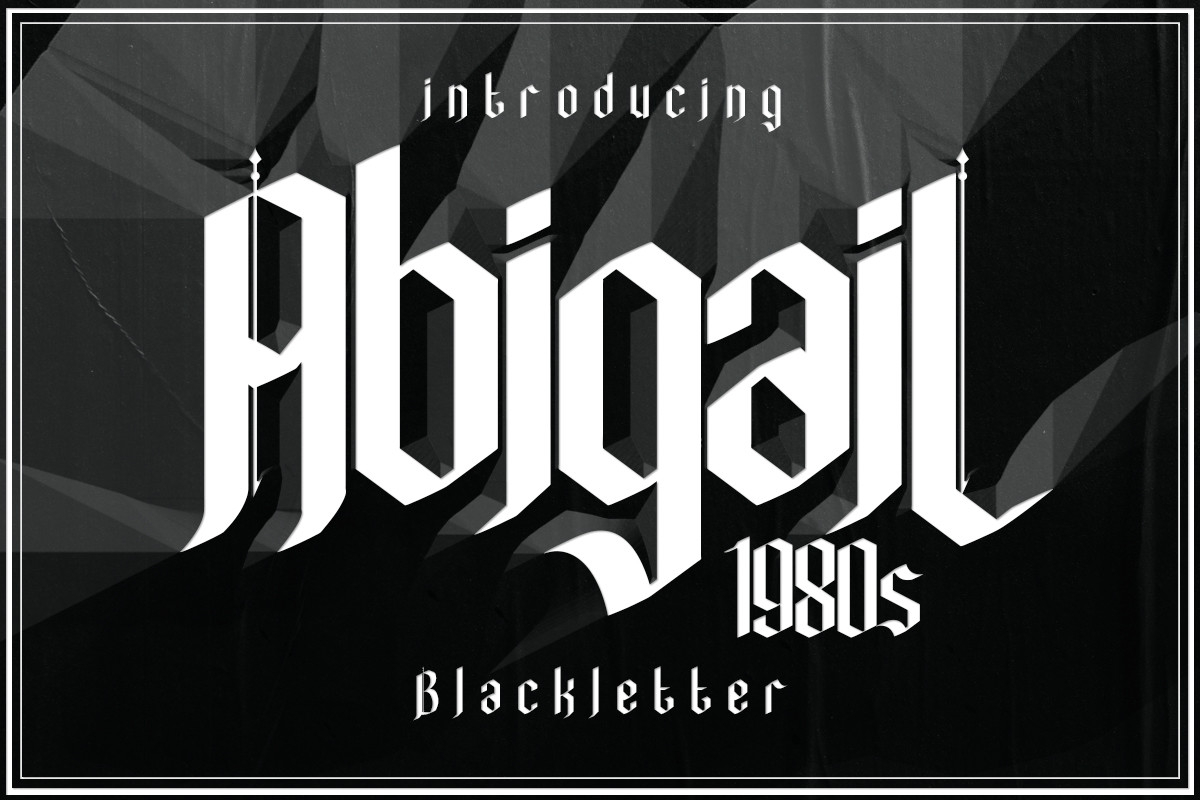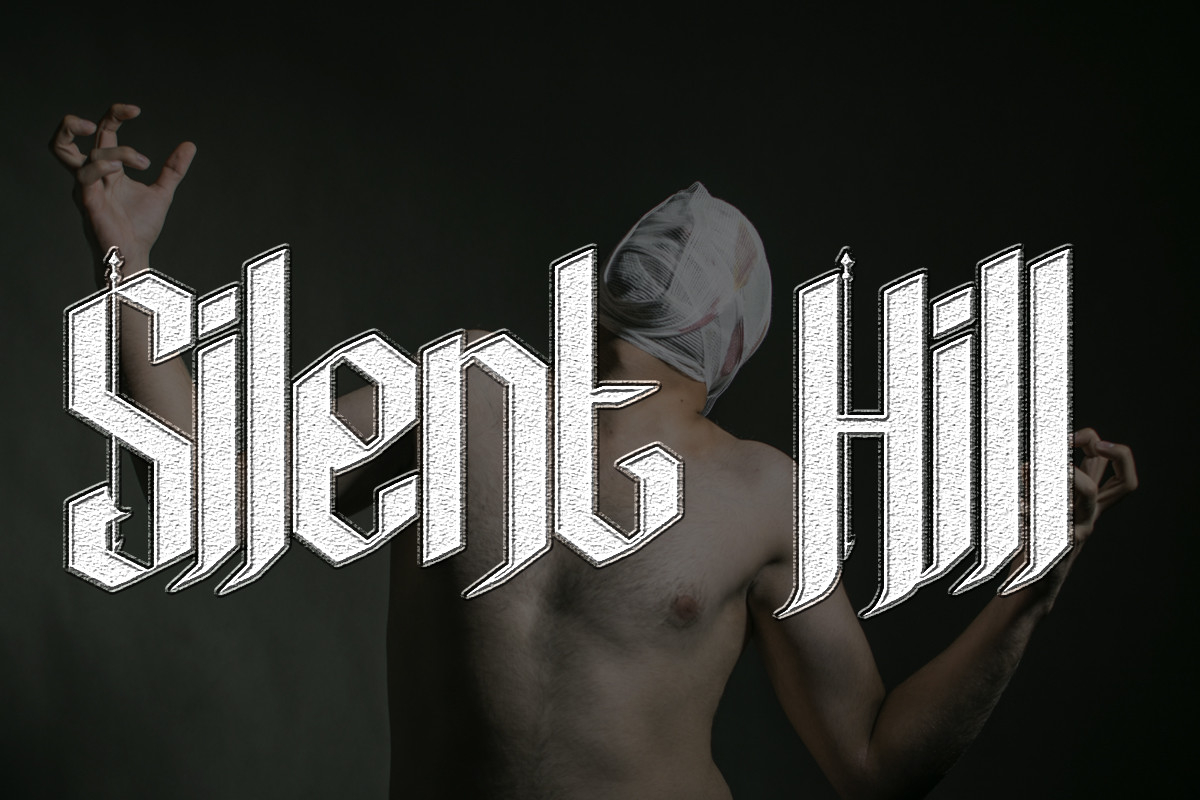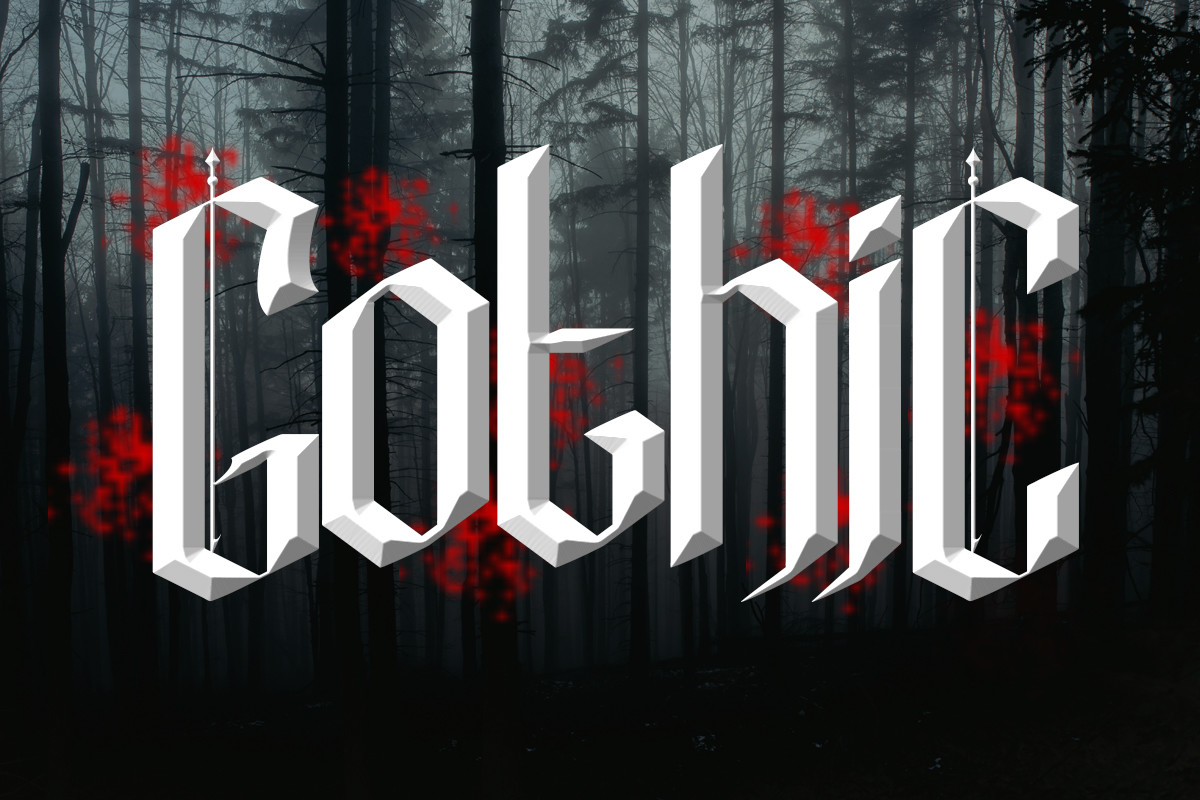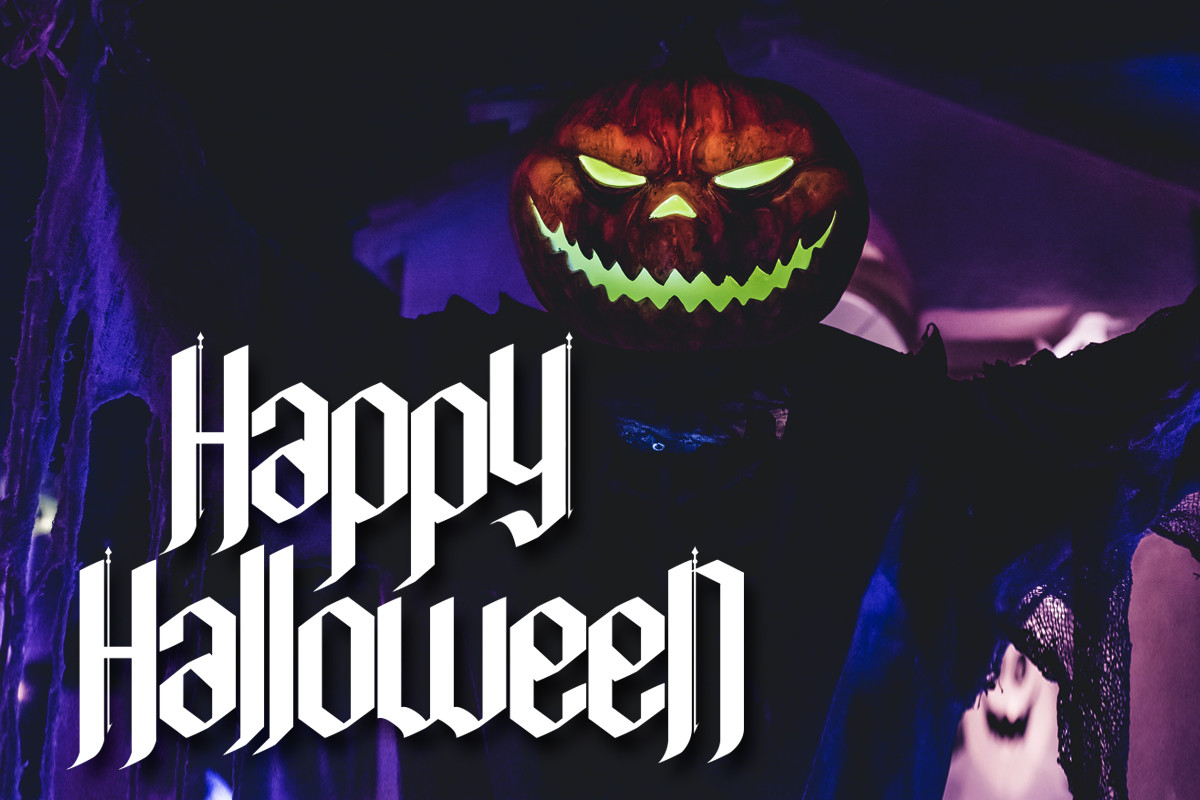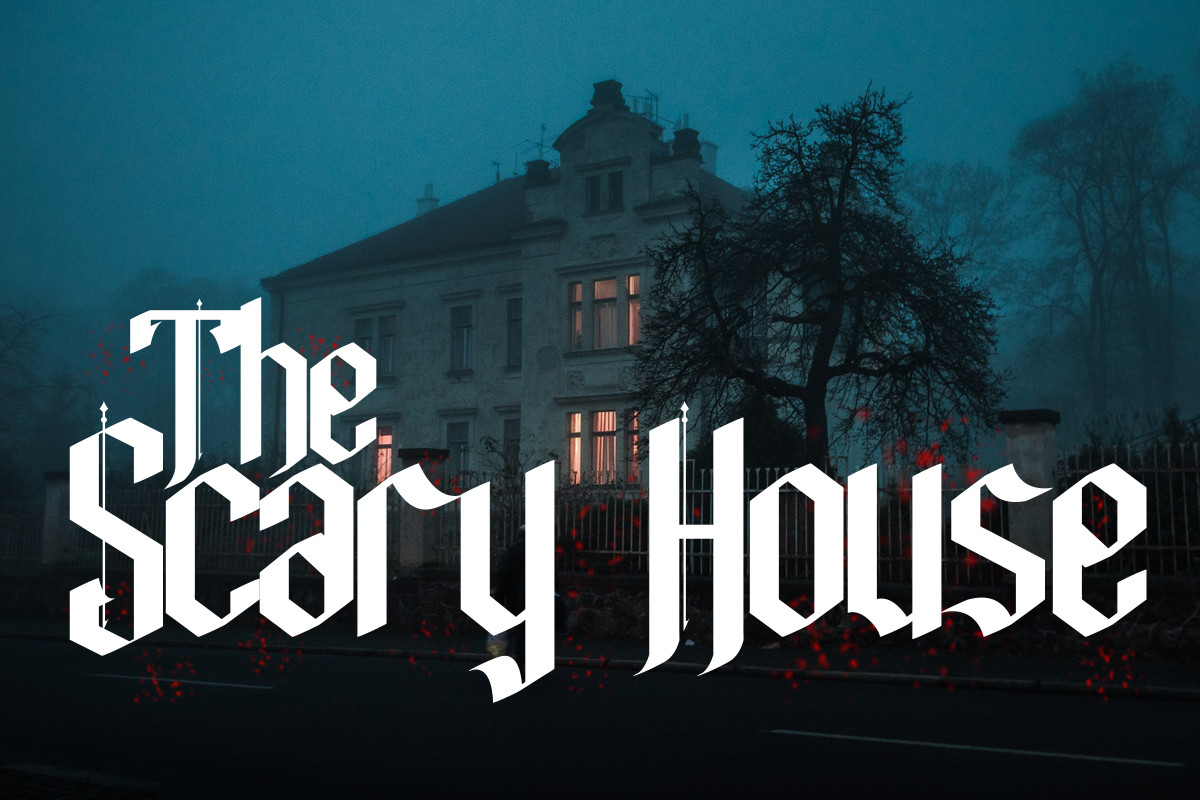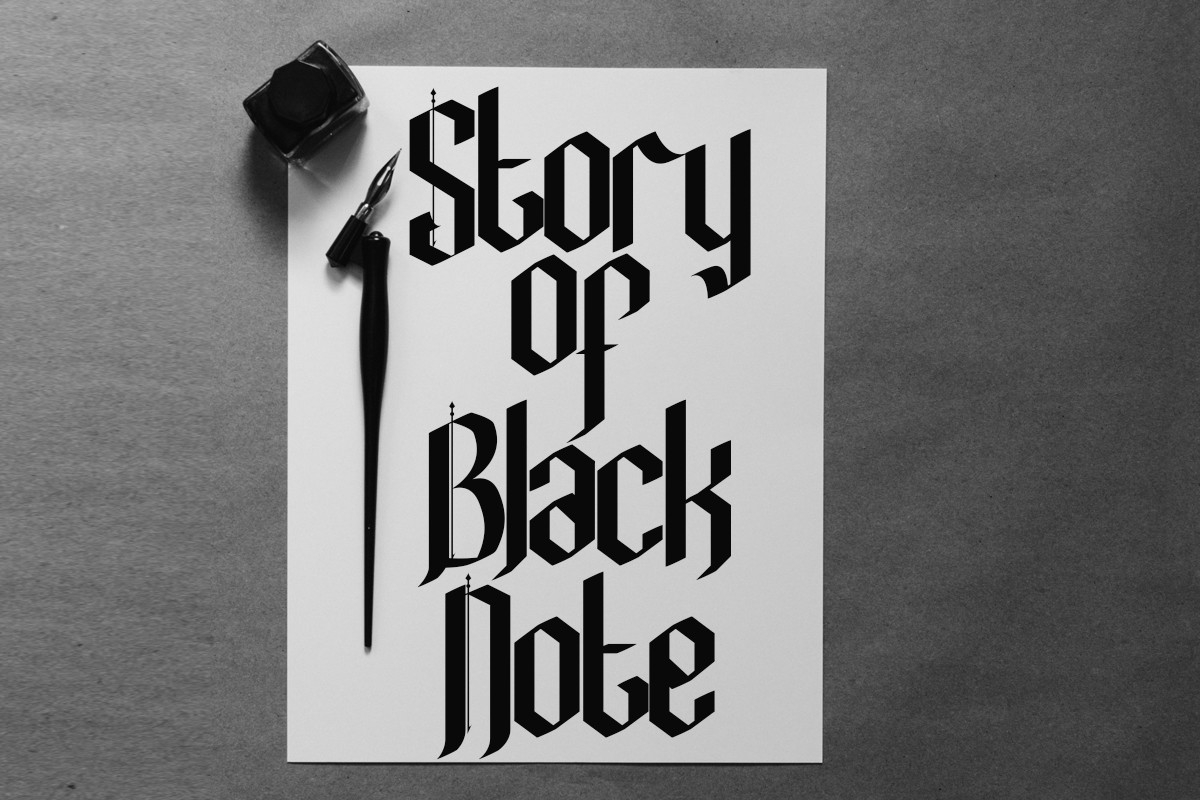
AbigaiL1980s Font
About AbigaiL1980s Font
Introducing AbigaiL1980s, a unique blackletter font for your design projects. It is great for display usage, tattoos, or if you want to create logos, posters, magazines, books, and other designs.